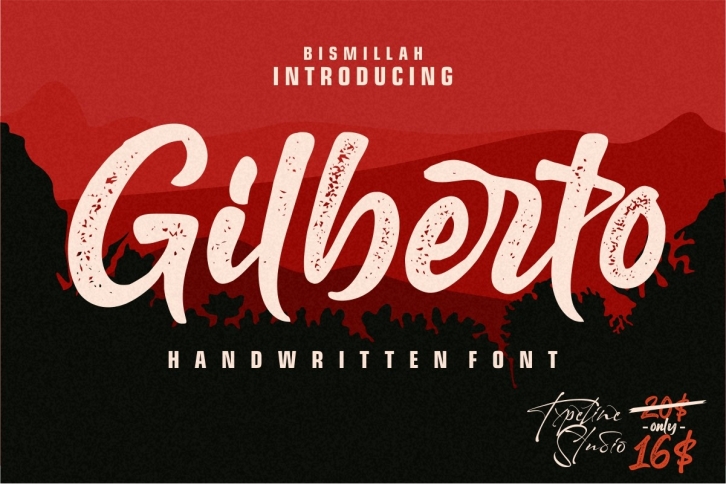
Gilberto letterpress script font Download
Gilberto letterpress script is a great font that was designed by typelinestudio. Imagine the amount of combinations you can create using this font! The archive is 9.52 MB and it was released on February 14, 2020. Gilberto letterpress script looks beautiful on wedding invitations, greeting cards, logos, posters, labels, t-shirt designs, logos, business cards and is perfect for use in ink or watercolor works, fashion, magazines, packaging and food menus, children's books and more!